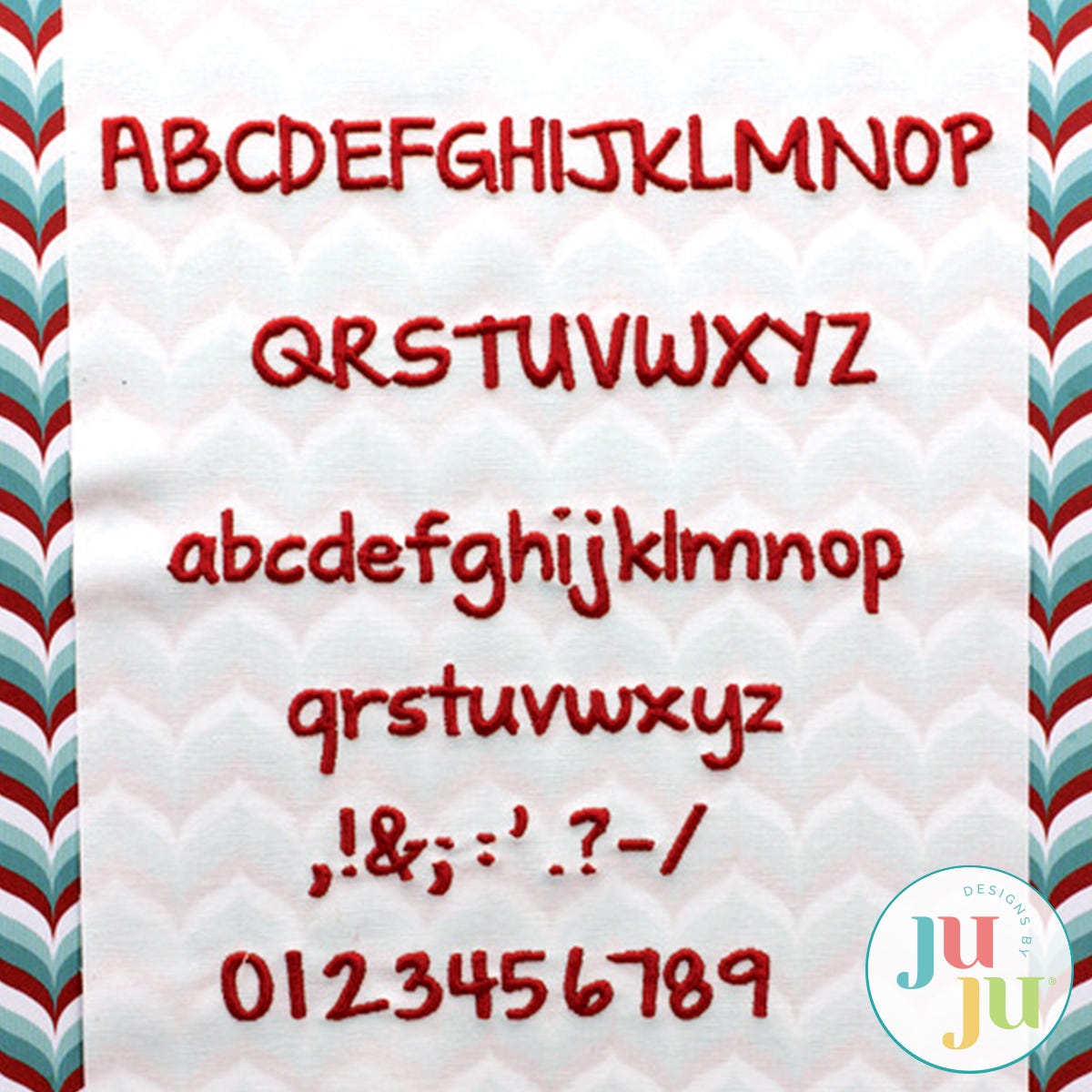
Shadow of the Day Satin Stitch Embroidery Font by Oma's Place
This slightly chunky, very readable font will help personalize your embroidery projects. Available in two sizes, 0.75" tall, ideal for items like totes and placemats, and 0.60" tall, perfect for labels and mug rugs. It includes the BX format for Embrilliance users.